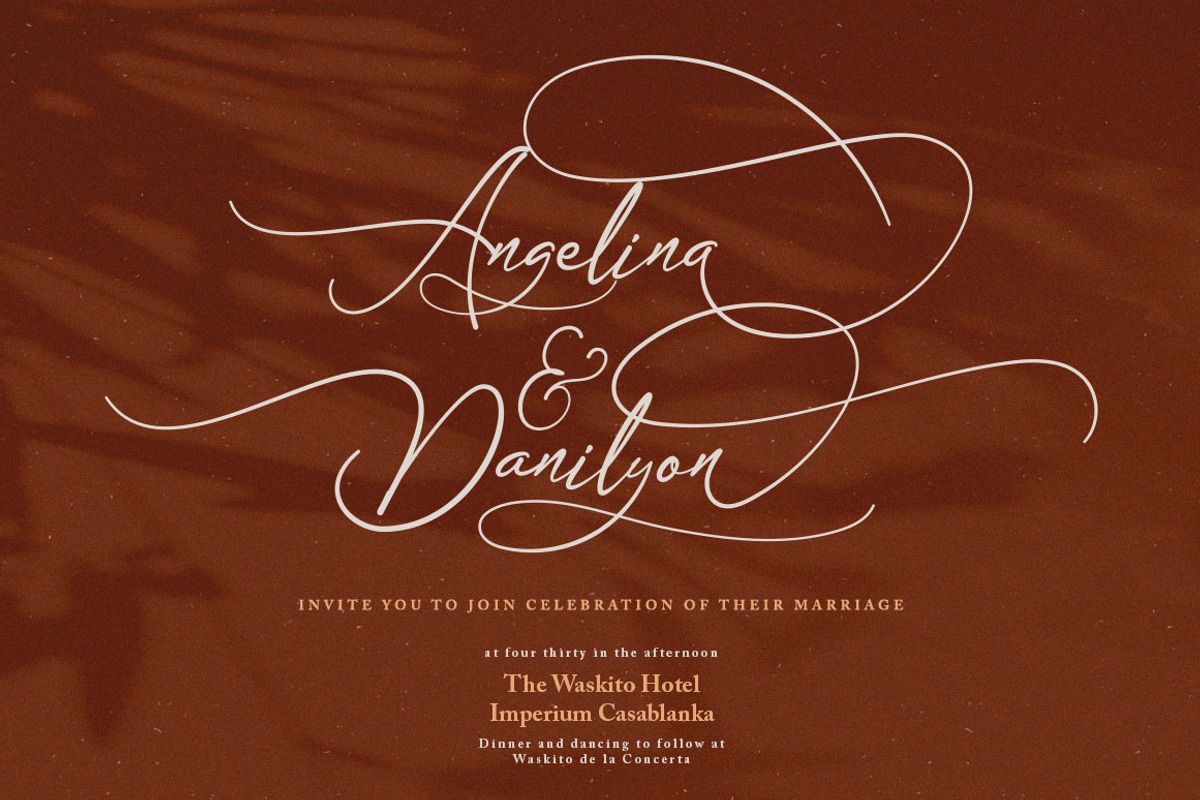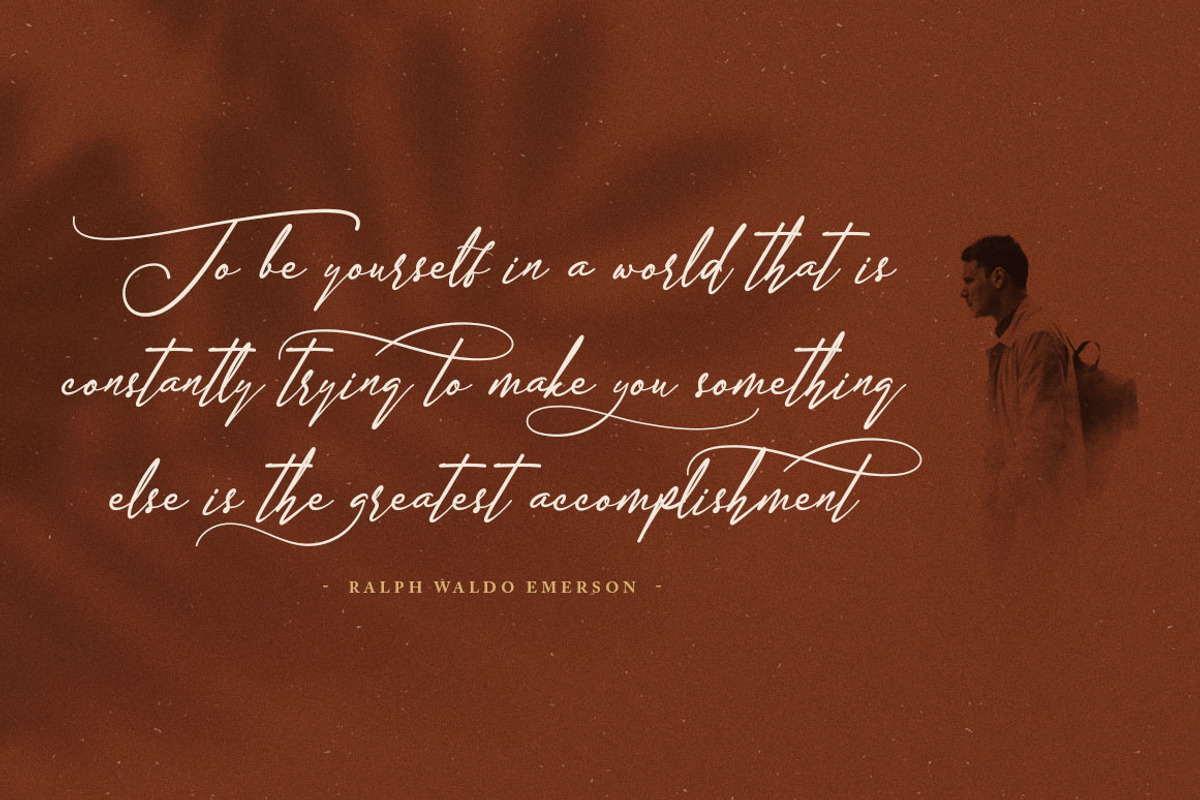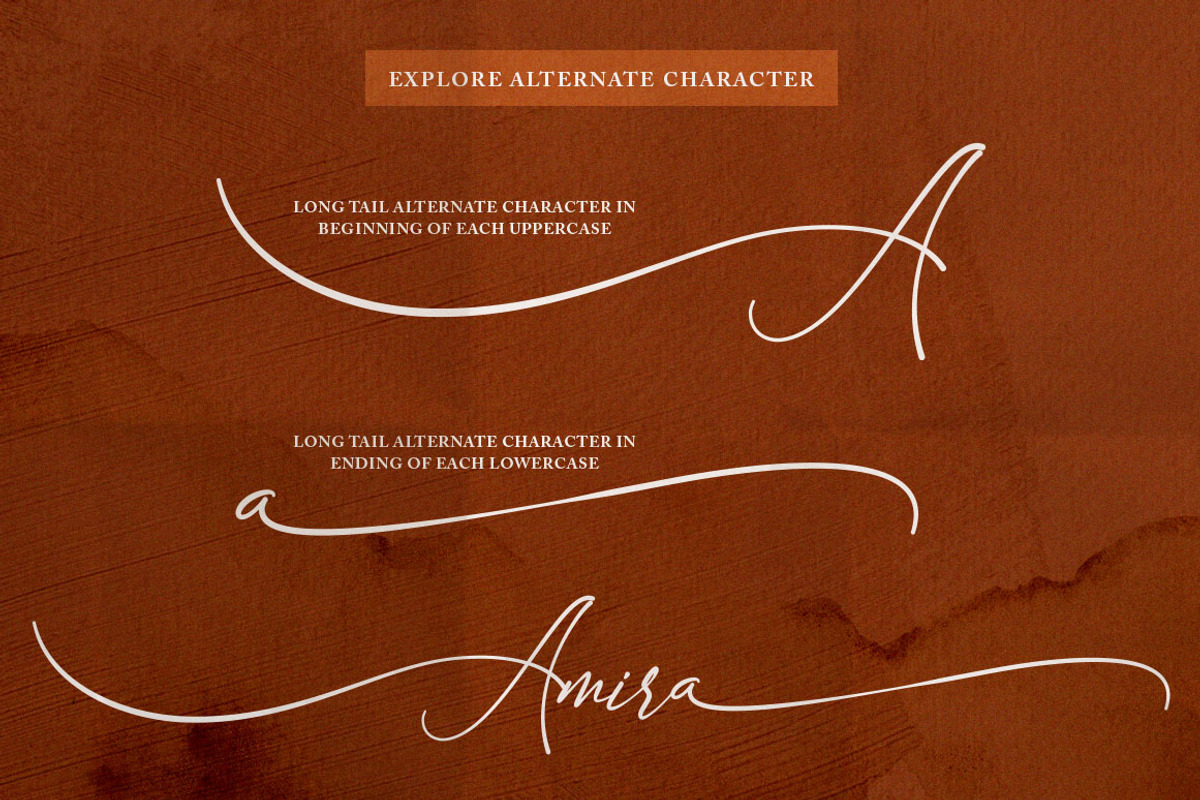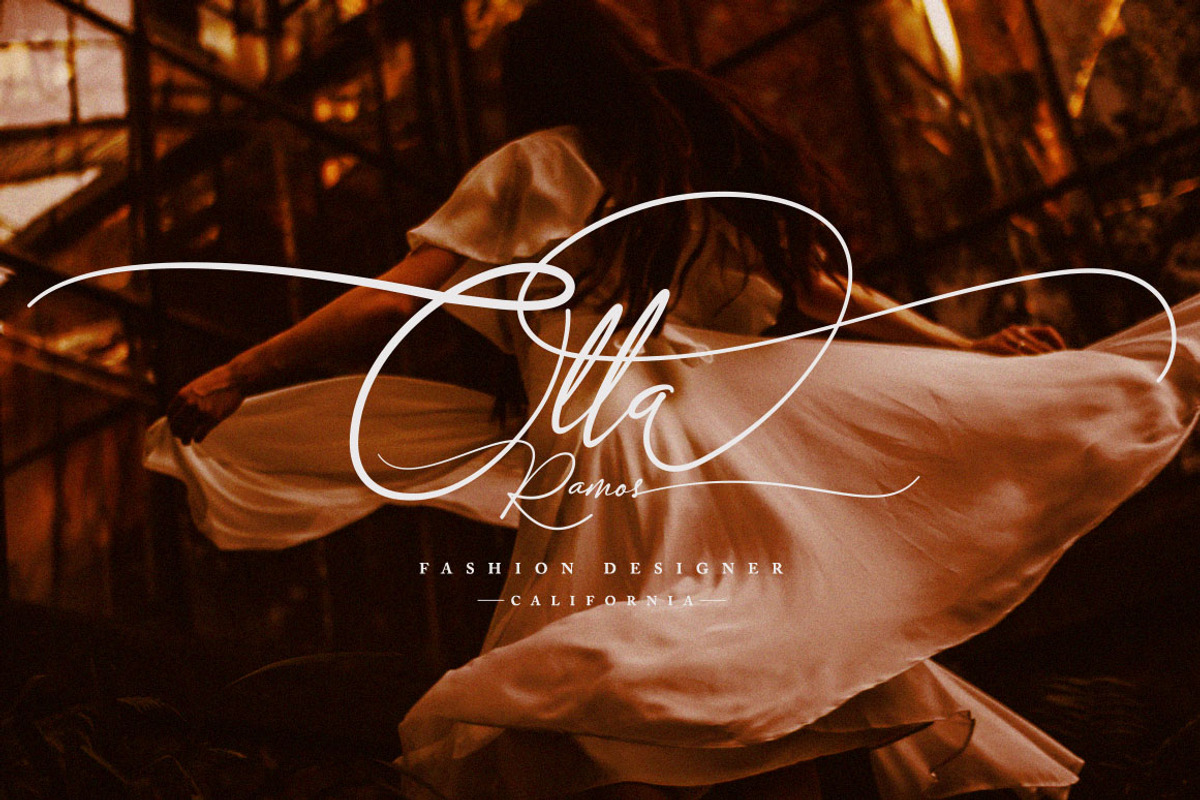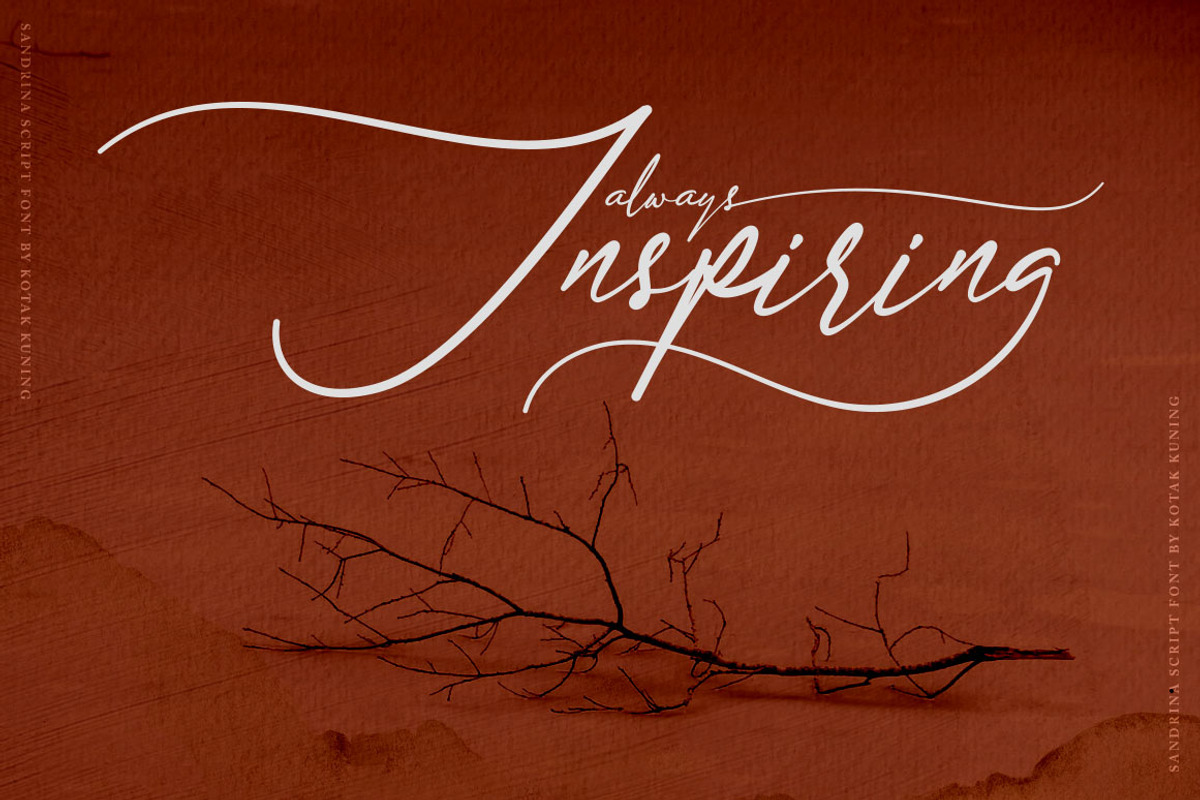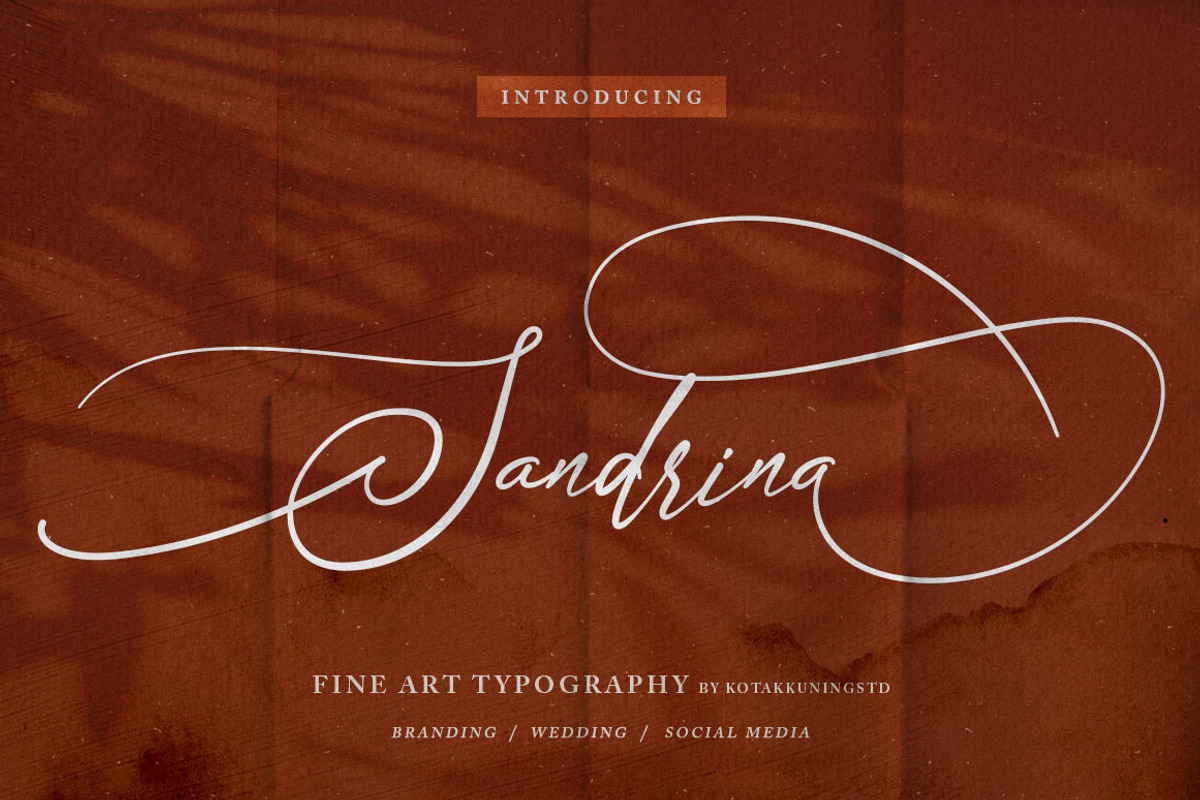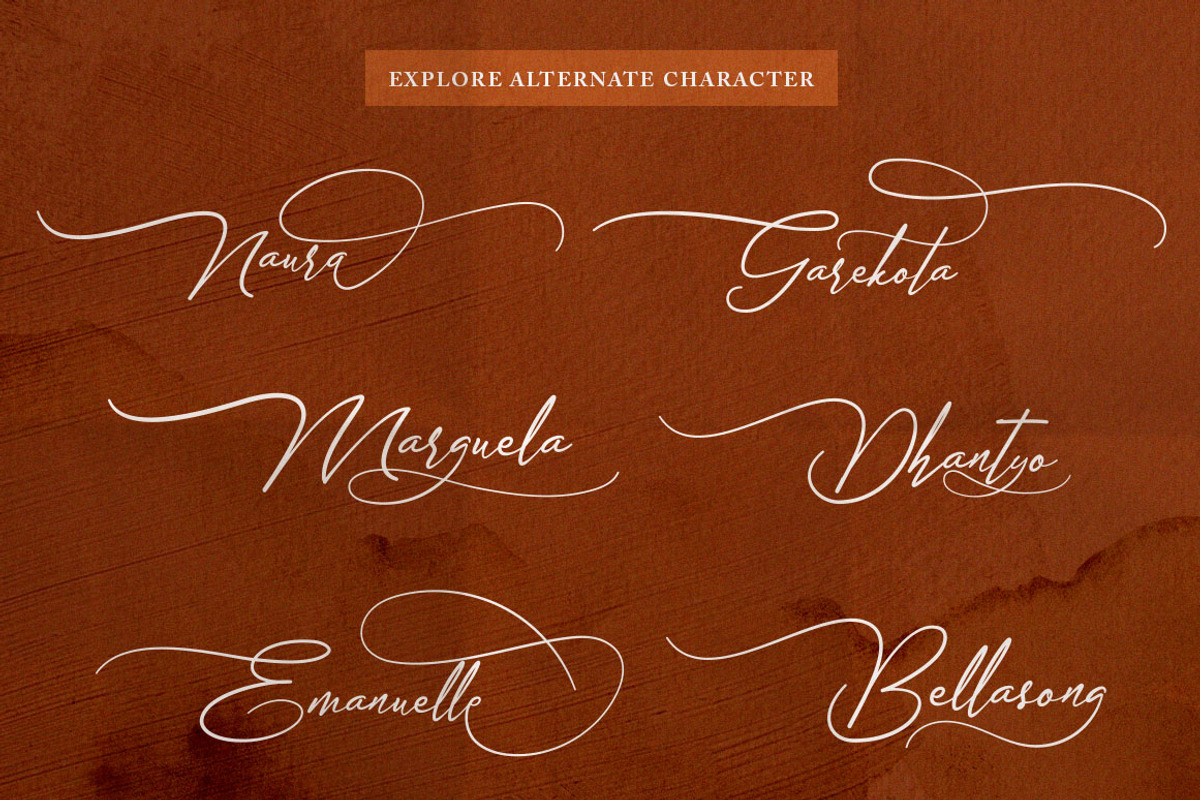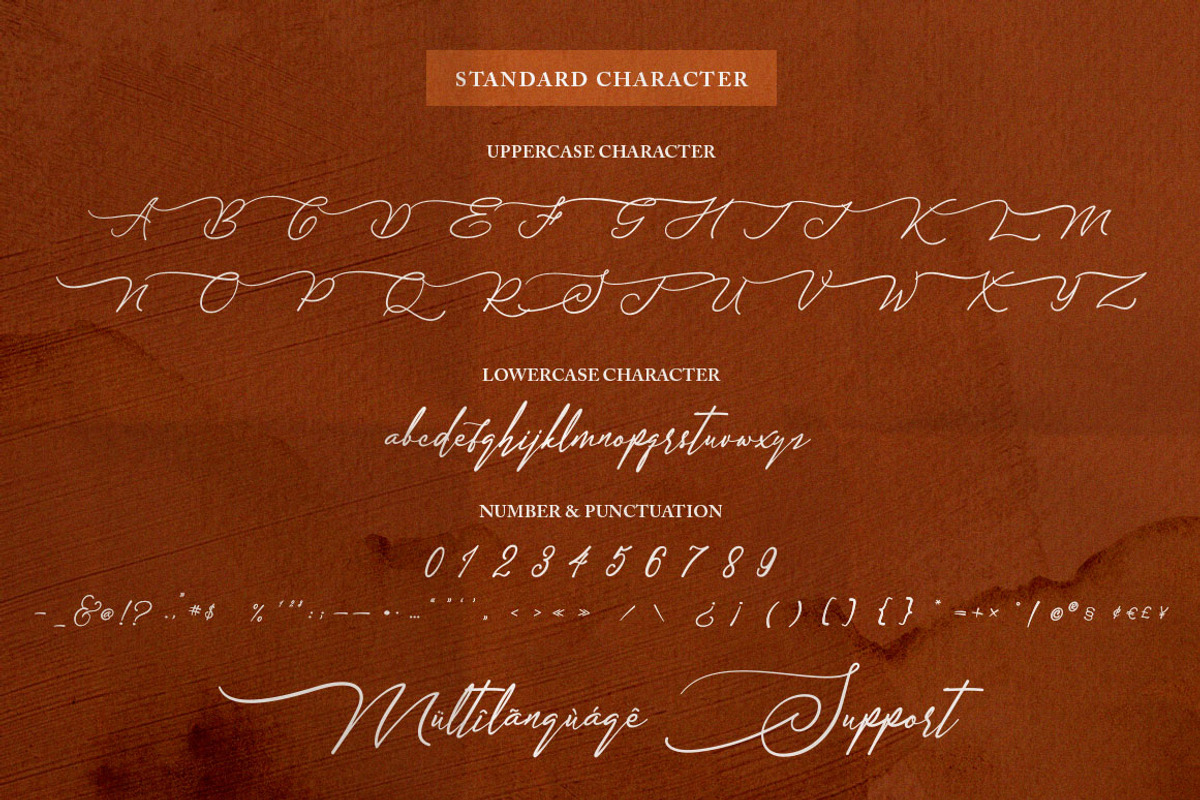
Sandrina- Elegant Script Font
Say hello to Sandrina! An elegant calligraphy script font. Perfect for making elegant stylish statements - or adding a touch of class to your designs. This script has a multitude of natural-looking ligatures in its OpenType features - making the font look as close to natural handwriting as possible.
Sandrina is perfect for many different projects such as logos & branding, invitation, stationery, wedding designs, social media posts, advertisements, product packaging, product designs, label, photography, watermark, special events, or anything.
- Sandrina includes capital and lowercase letters, alternates, and Ligatures
- Numbers + punctuation
- Foreign language support
Sandrina- Elegant Script Font by Kotak Kuning Studio fits naturally into Branding, posters, packaging, typography.